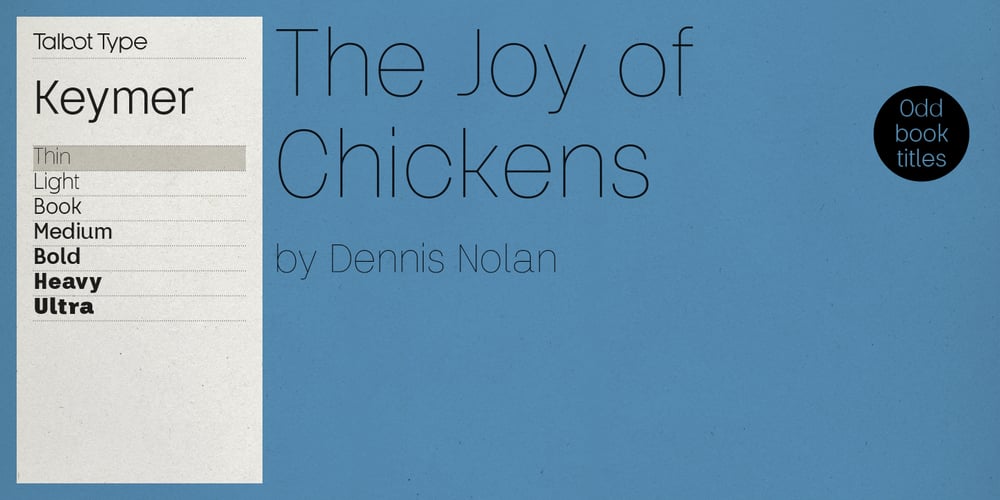
Keymer Font Family was designed by Adrian Talbot and published by Talbot Type. Keymer contains 14 styles and family package options. Talbot Type Keymer is inspired by Margaret Calvert’s Transport typeface, designed for the British road sign system in the early 1960s. Keymer mixes geometric and humanist traits to achieve a modern, clean, elegant appearance. It is a legible and versatile text and display face available in seven weights. Keymer features an extended character set to include old style numerals, accented characters for Central European languages and bespoke characters in the italic for a more flowing look.